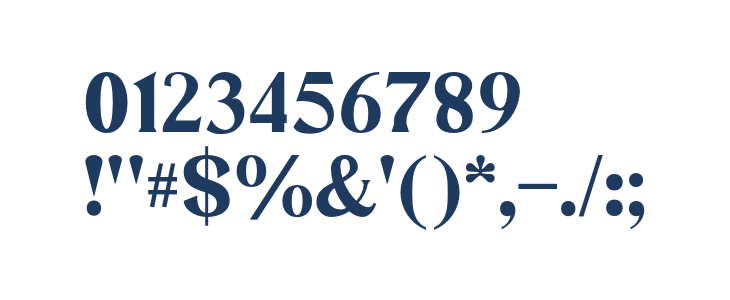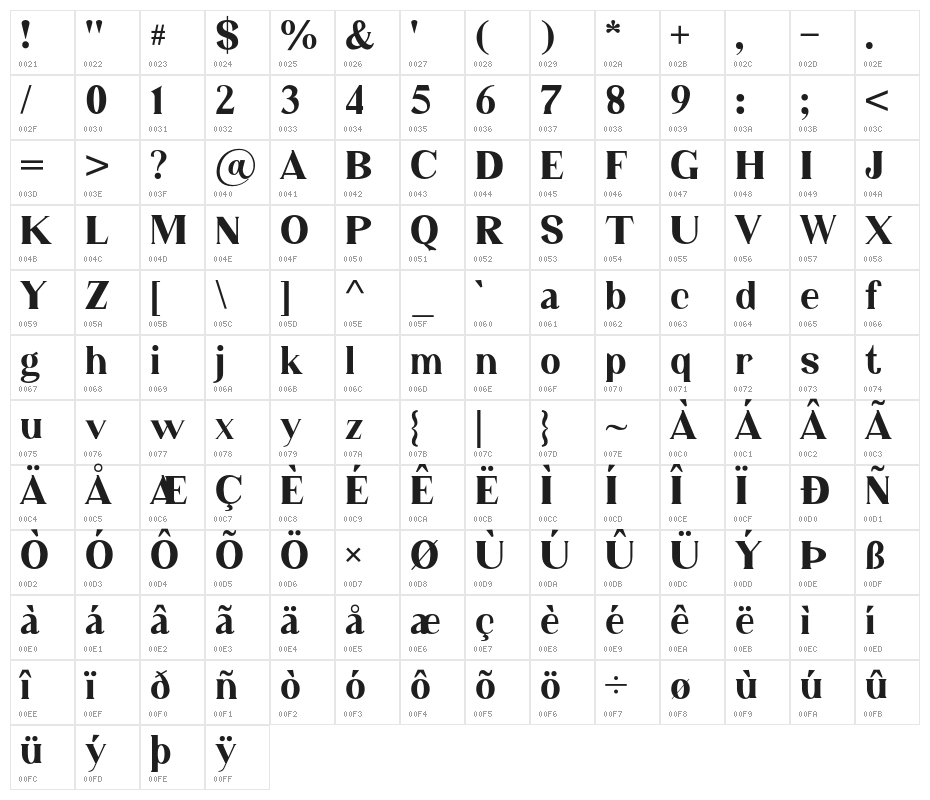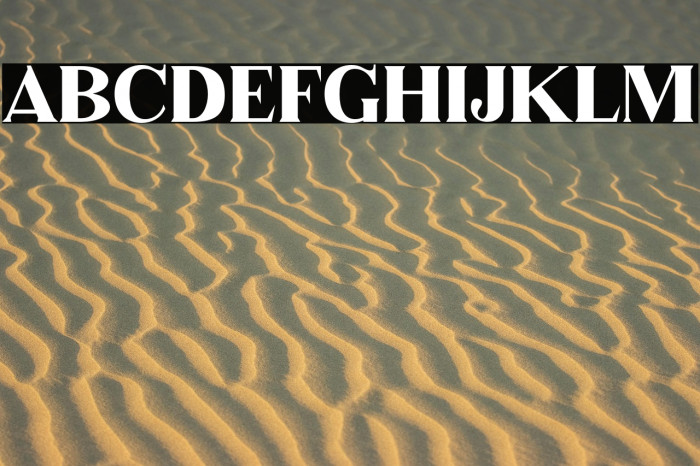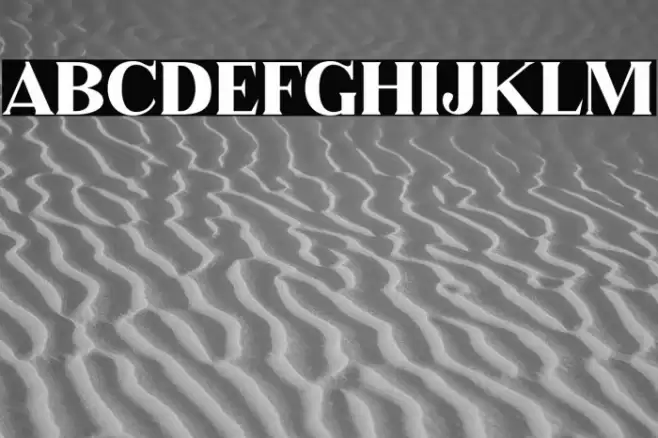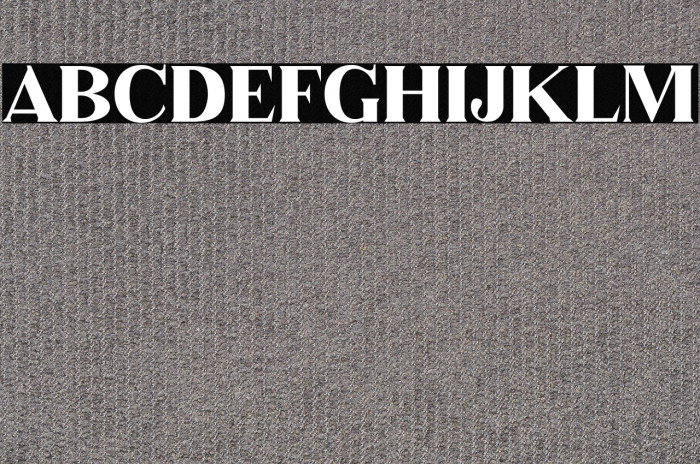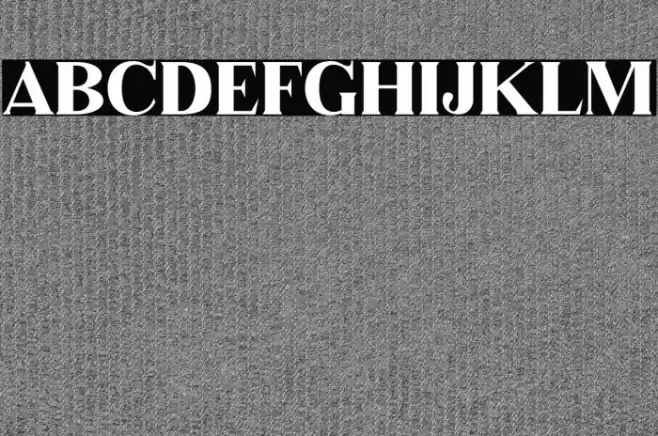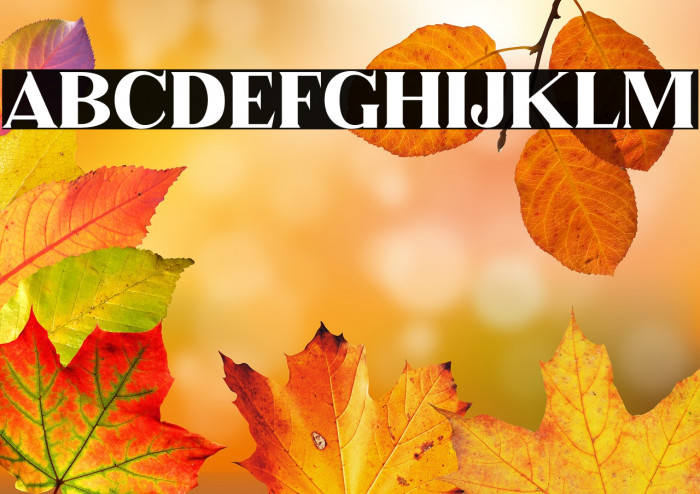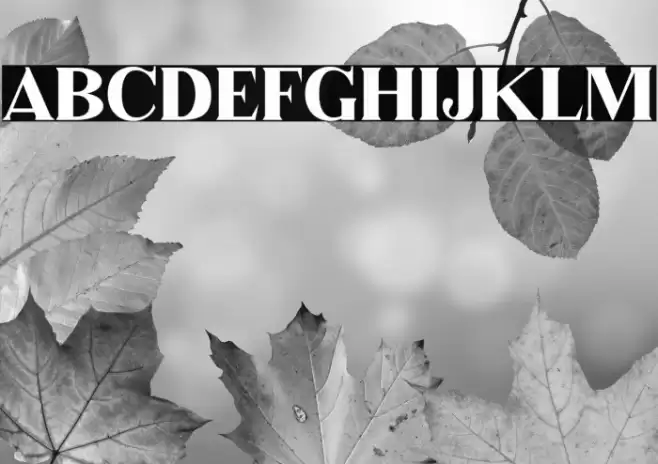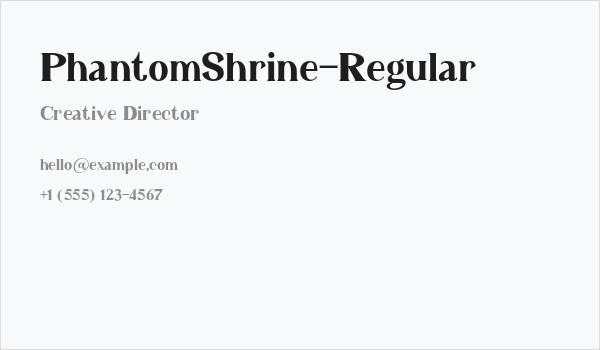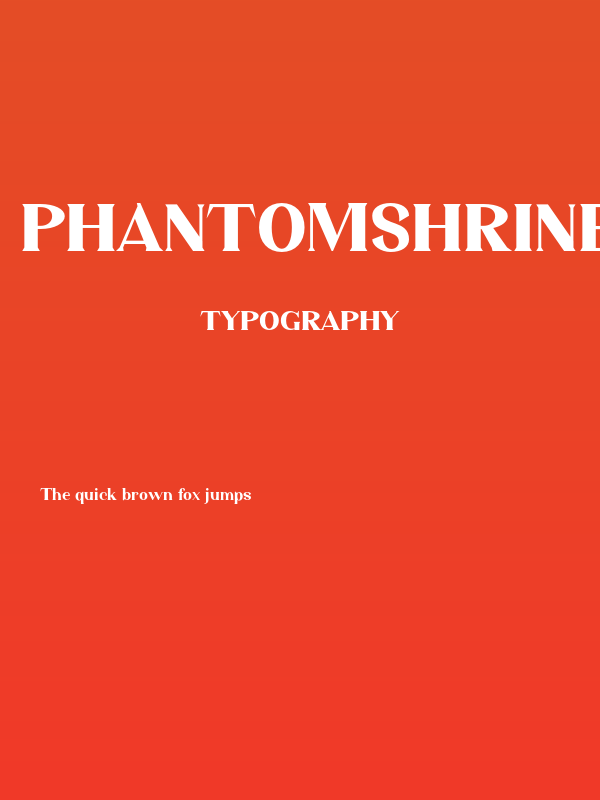
PhantomShrine-Regular Font
PhantomShrine-Regular Description
This font showcases a bold and dramatic serif style, characterized by its high contrast between thick and thin strokes. The uppercase letters are strong and commanding, while the lowercase letters maintain a sense of elegance and readability. The numerals are distinct and clear, making them suitable for both display and text settings. Special characters are well-designed, adding to the font's versatility. The overall aesthetic is both classic and modern, making it suitable for a wide range of applications.
| Proposed Projects | Ideal for editorial design, book covers, branding, and advertising where a strong, elegant presence is desired. |